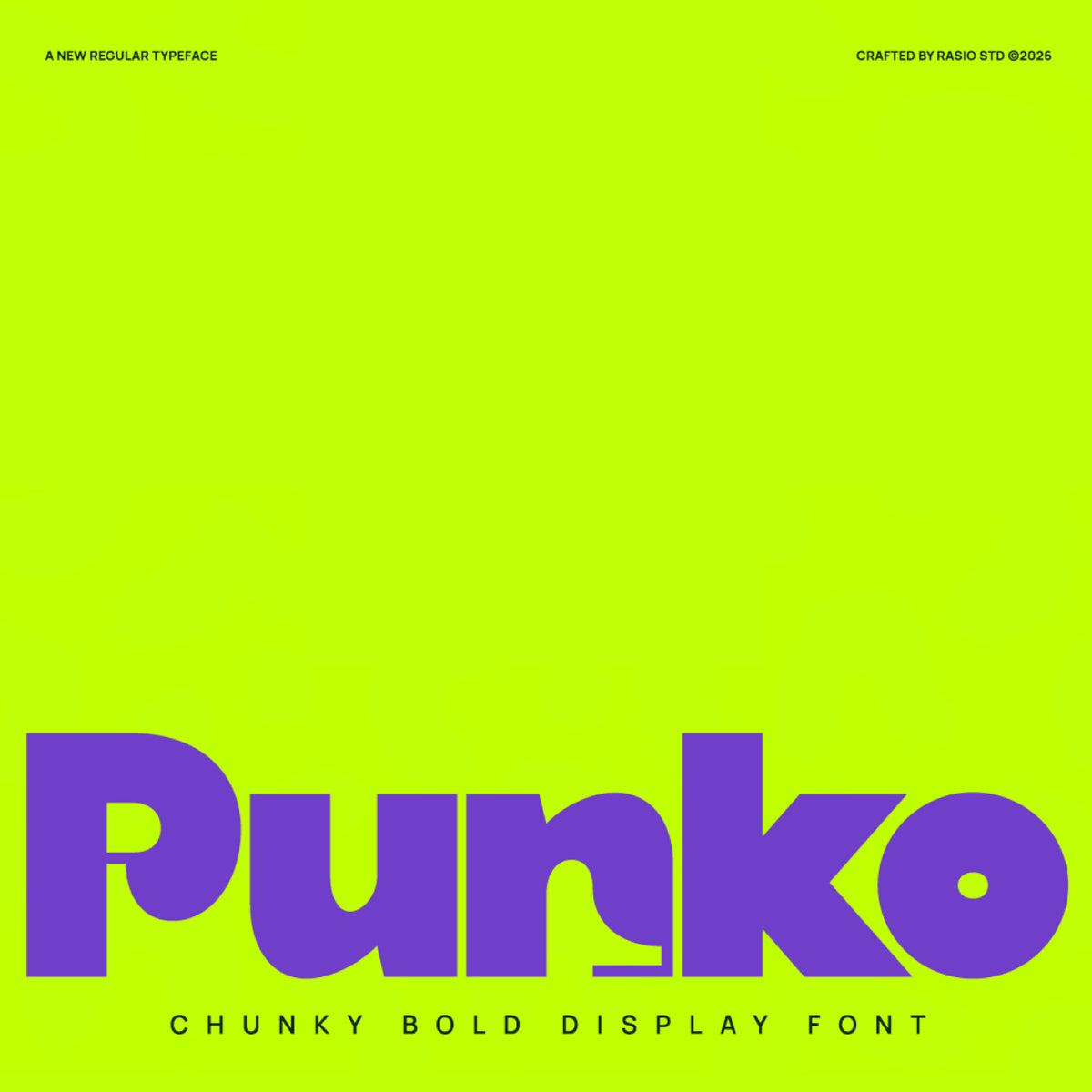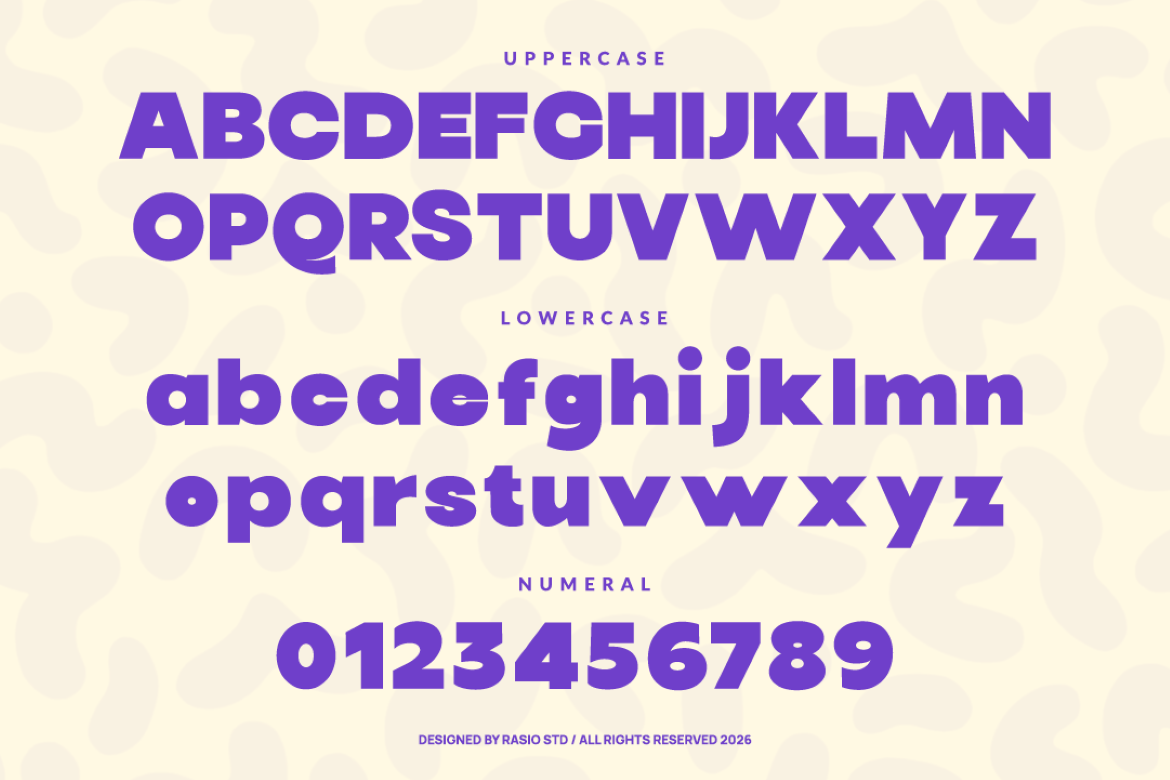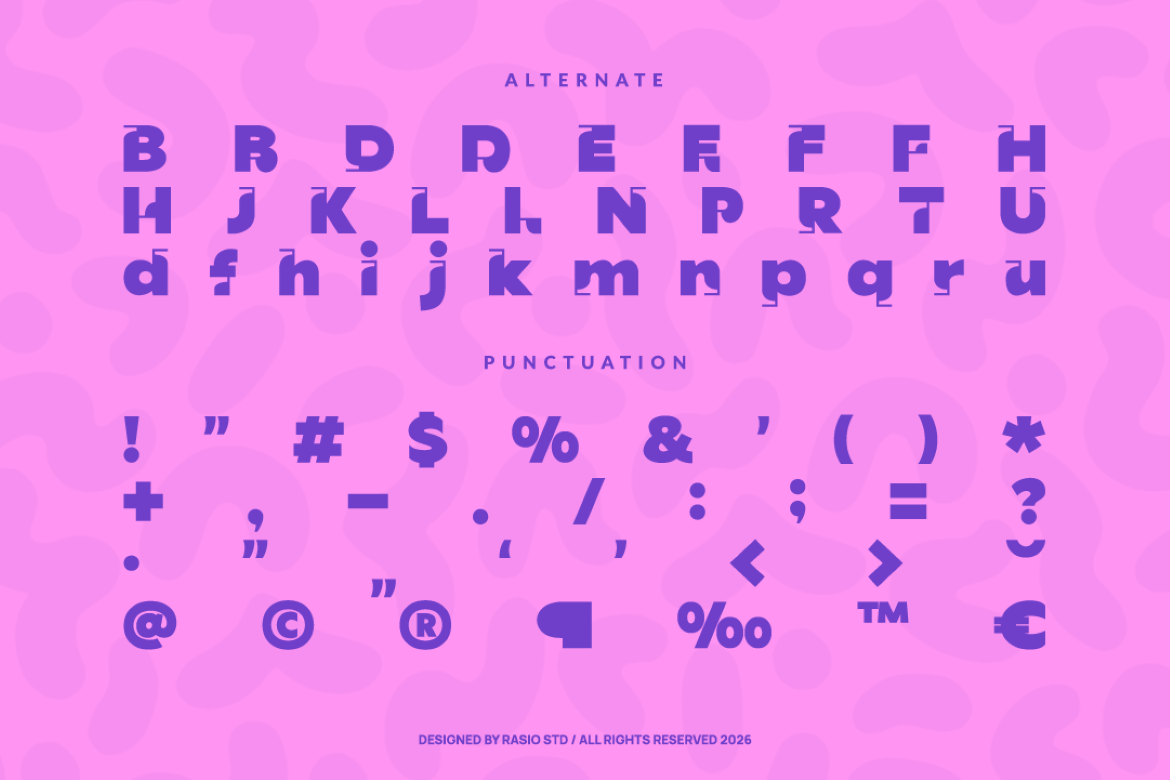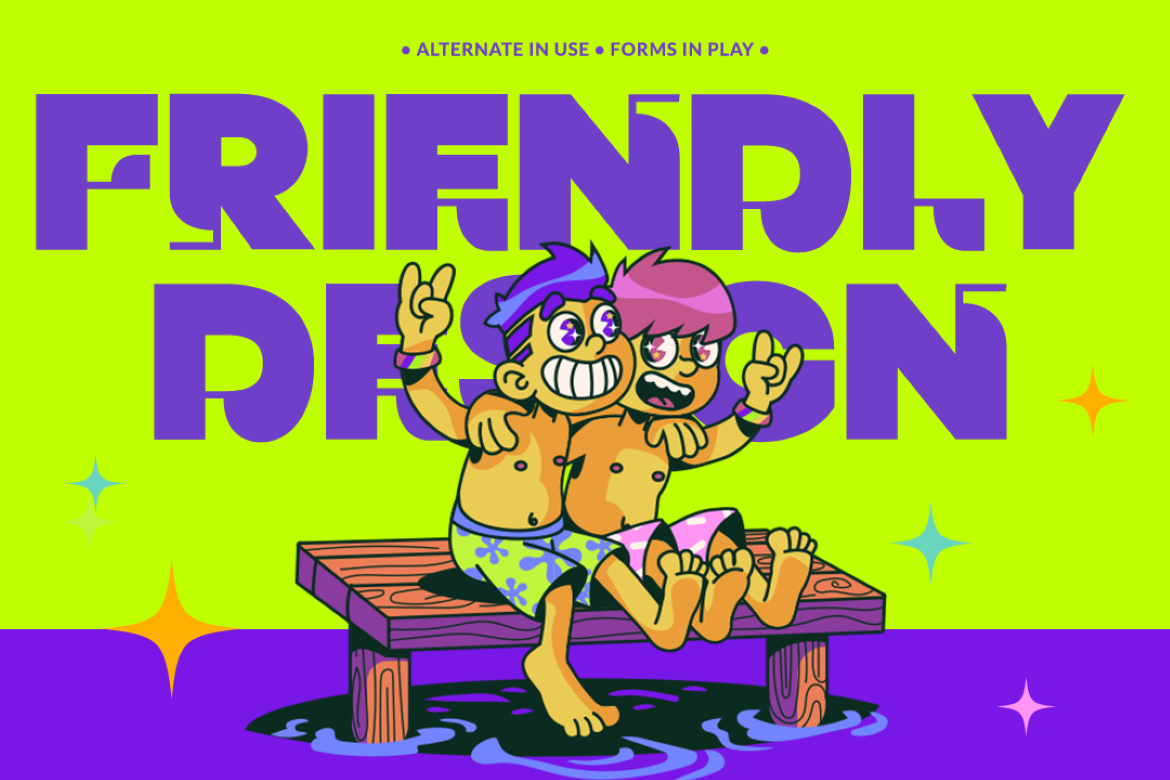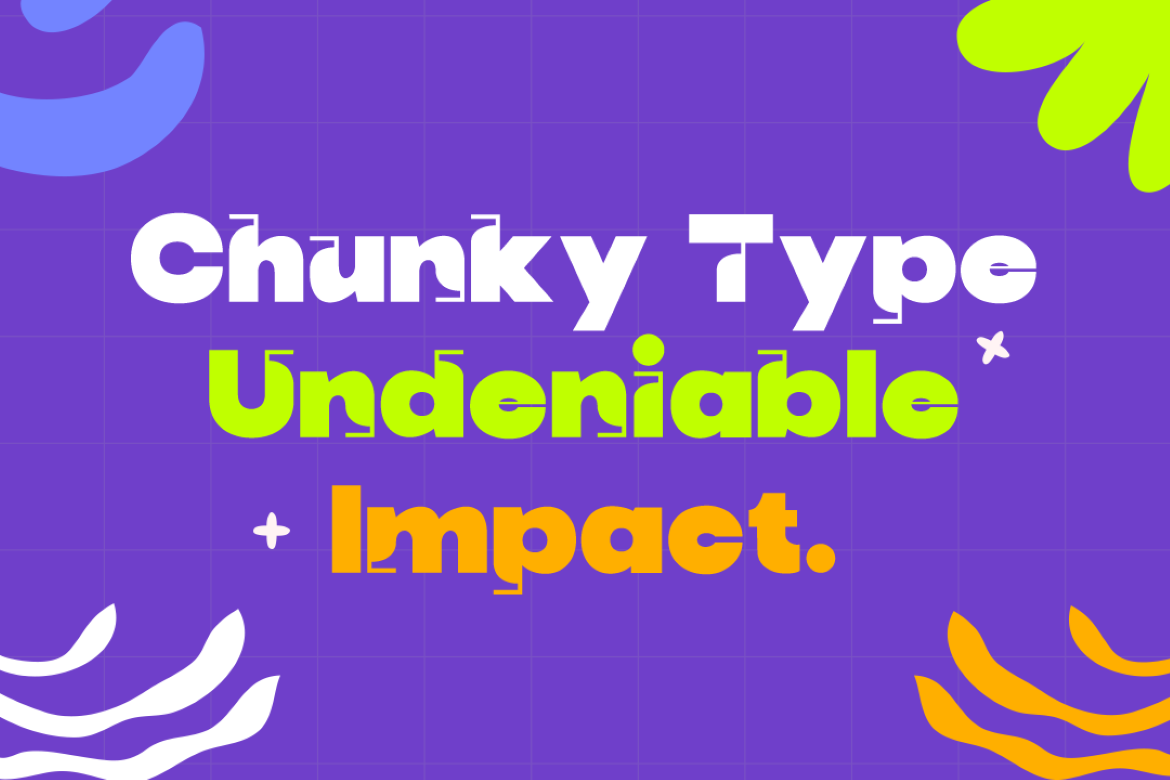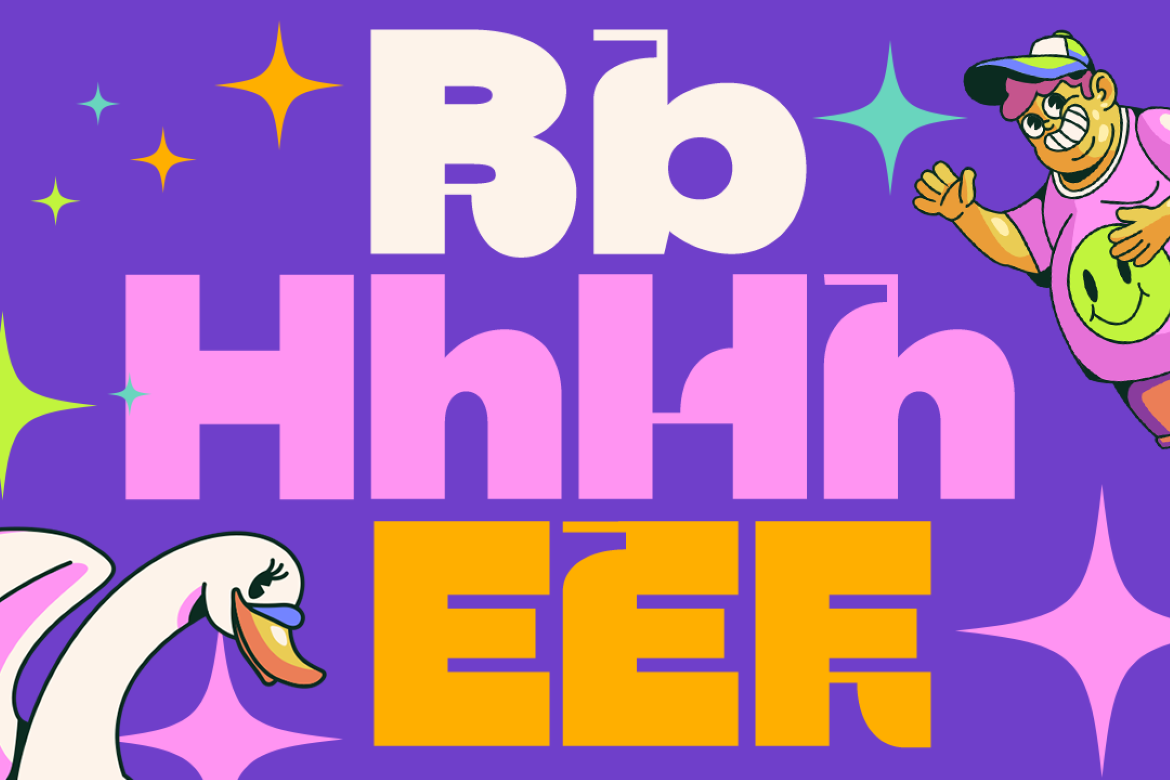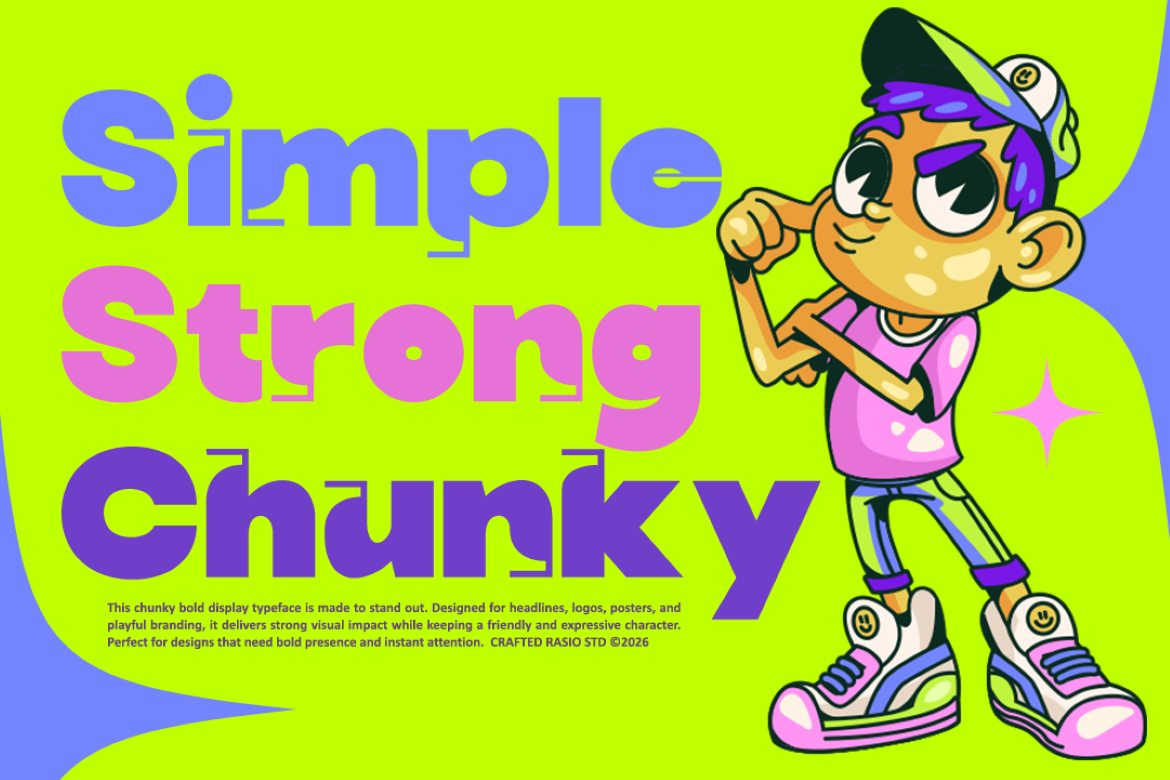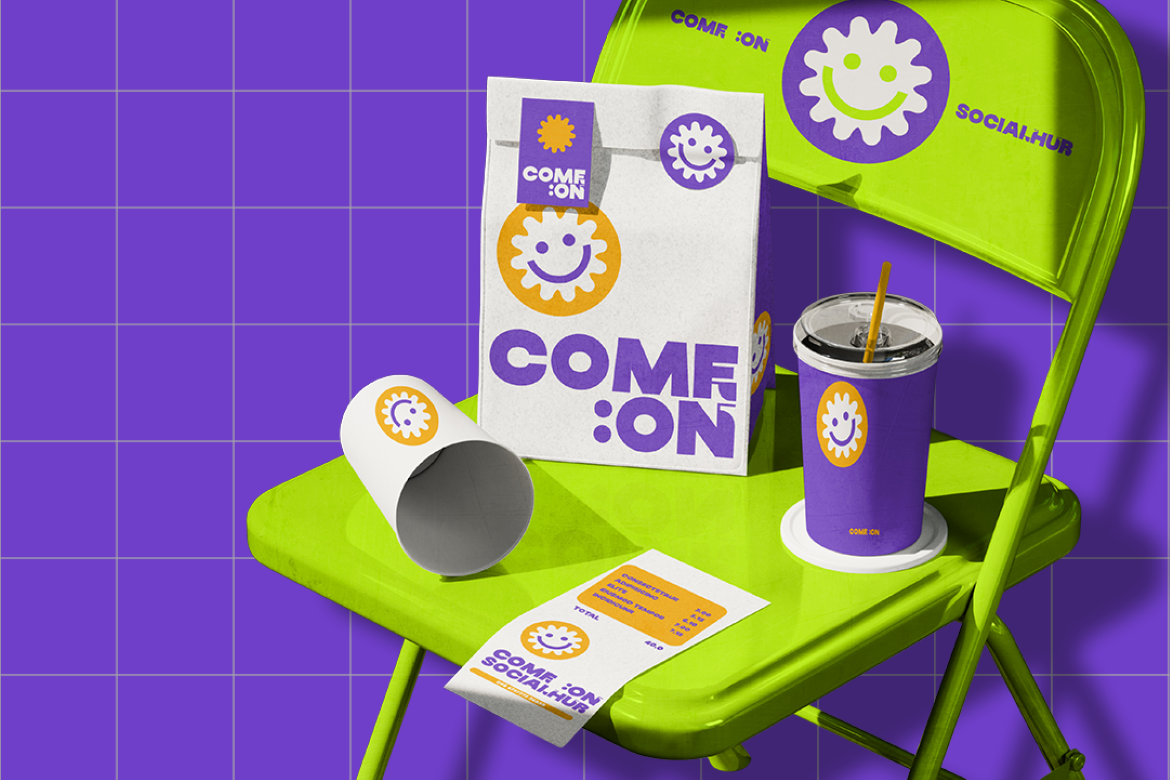
Punko Chunky Bold Display Font
Punko is a chunky bold display font designed to deliver strong visual impact with a playful and expressive character. It features thick strokes, rounded letterforms, and confident proportions that create an energetic and friendly typographic presence. The font includes uppercase and lowercase letters, numerals, and punctuation, making it versatile for bold display needs.
Relevance and Use Cases is perfect for designs that need strong presence, personality, and instant attention. It works well for playful brand identities, kids-oriented visuals, posters, packaging, social media graphics, YouTube thumbnails, merchandise, stickers, and bold marketing materials where fun and confidence are essential.
• Alternate Supports
Punko is a chunky bold display font featuring thick strokes and rounded letterforms, including uppercase and lowercase characters, numerals, punctuation, and alternate character support. It is available in OTF, TTF, and WOFF formats.